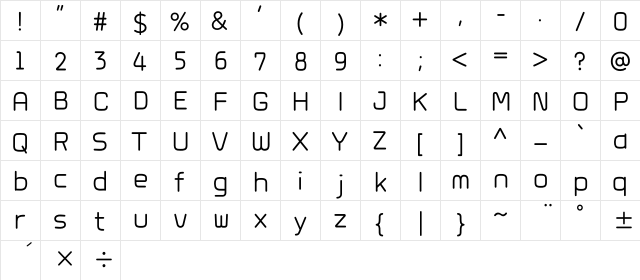
Kanna-W4 Regular
Design Context for Kanna-W4 Typeface
Kanna-W4 offers clean, dependable letterforms without strong stylistic allegiance, making it a practical choice for designers who need flexibility.
Pro Tip: Use Kanna-W4 in both headline and body roles to test its range before committing to a single application.